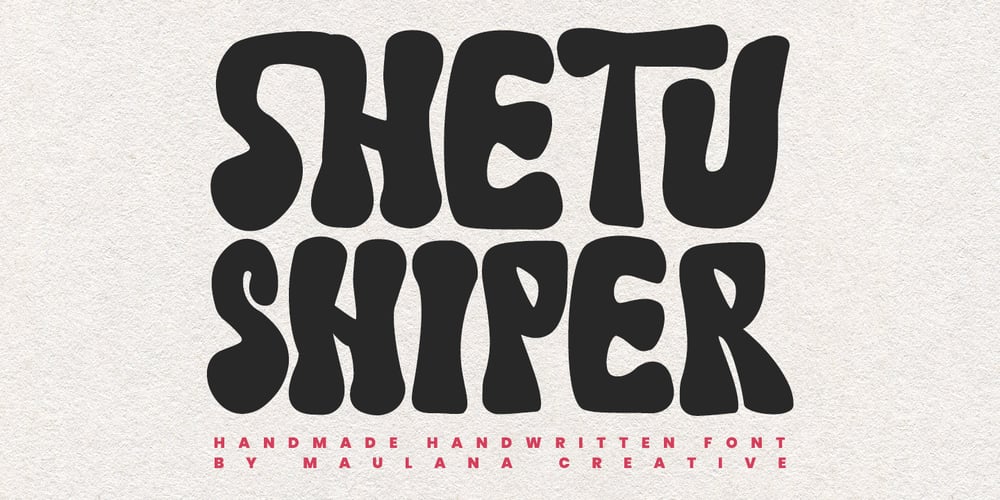
MC Shetu Shiper Font Family was designed by Gilang Maulana and published by Maulana Creative. MC Shetu Shiper contains 1 styles and family package options. Give your designs an authentic brush handcrafted feel. “Shetu Shiper Handmade Handwritten Font” is perfectly suited to signature, stationery, logo, typography quotes, magazine or book cover, website header, flyer, clothing, branding, packaging design and more.